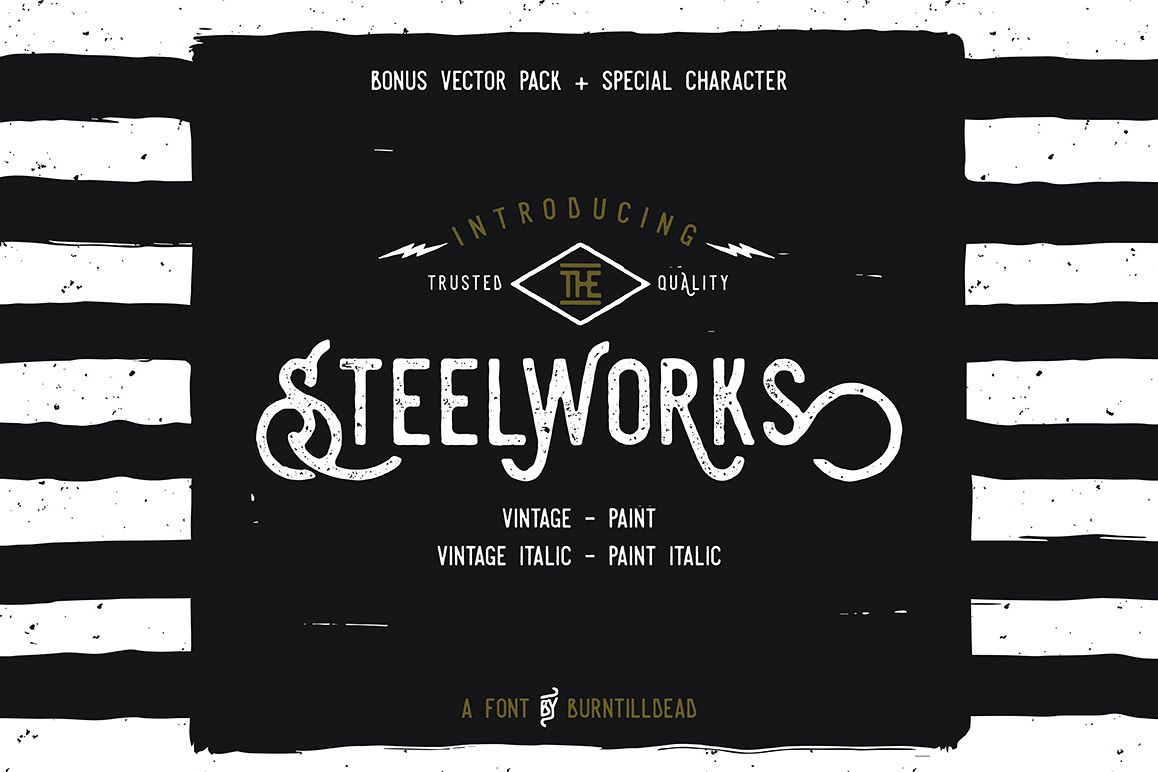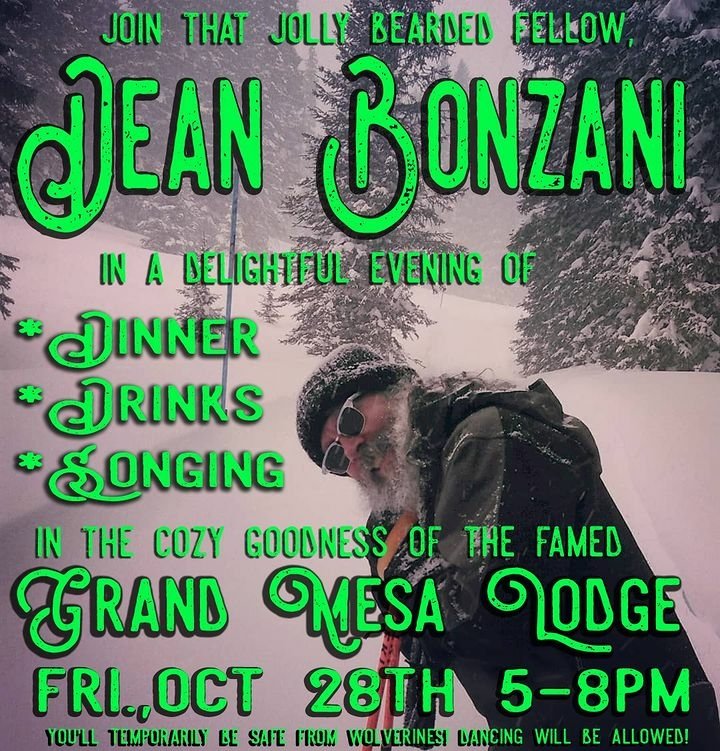
Say hi to handmade font Steelworks!
Inspired from ink & tints manual hand drawn brush to make a natural messy, with alternate glyphs and ligature of type could help you make a stylish design, and alternate character could bring a good display. Each glyph made manually one by one with very diligent and consistency.
Steelworks comes with alternate upper and lowercase characters, and supports international languages. To check all glyphs please click 3rd preview!